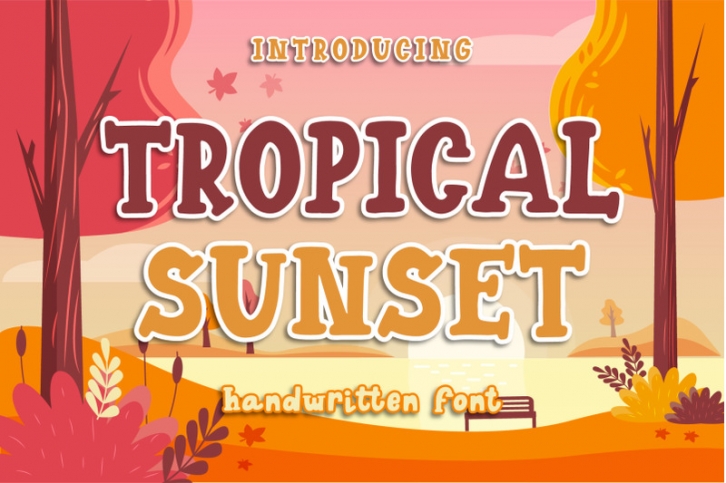
Tropical Sunset is a sweet, funny, cute handwritten font. Clean and soft, this font is the perfect fit for all of your crafty DIY projects, cricut, logos, branding, social media, etc.